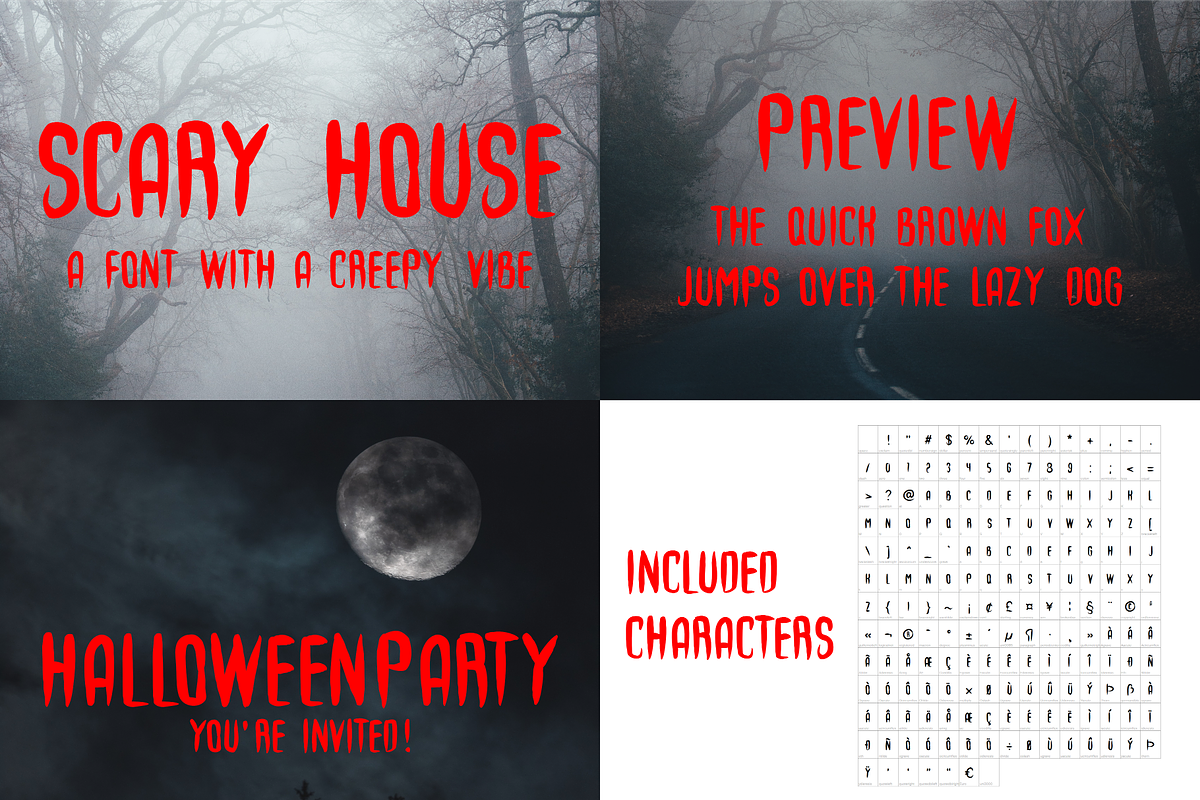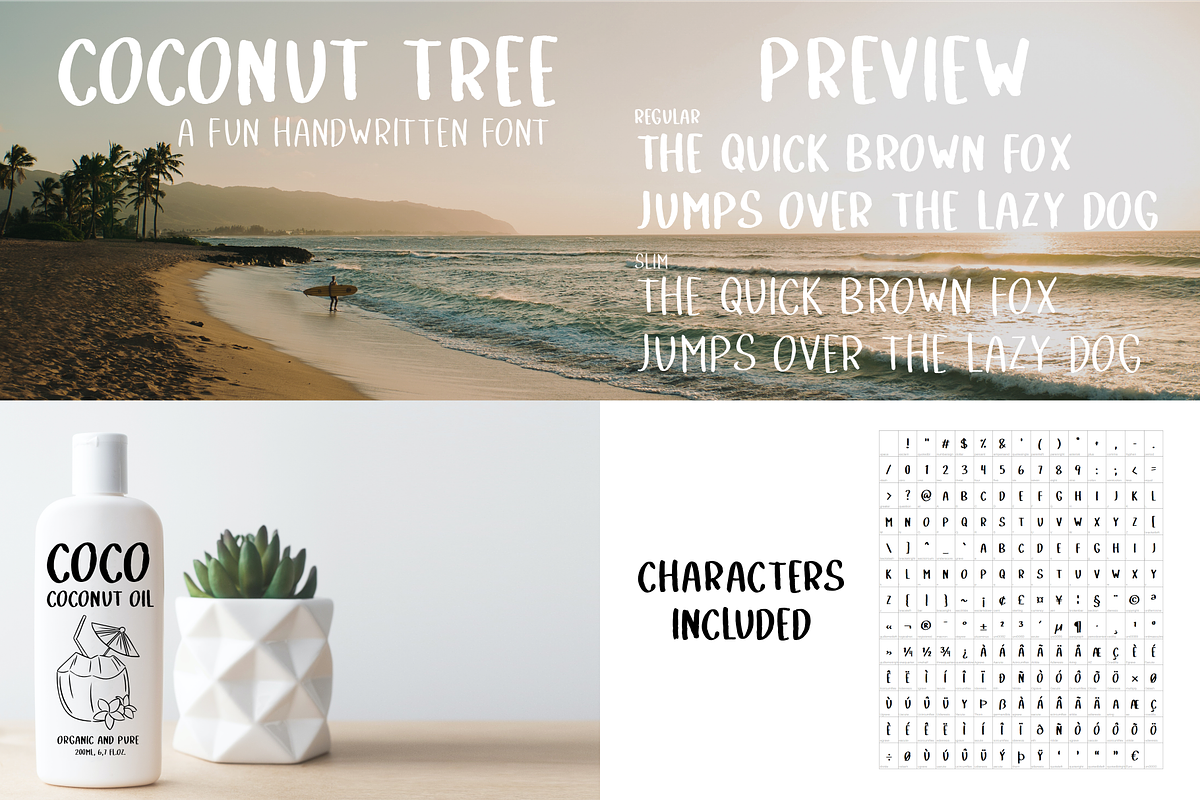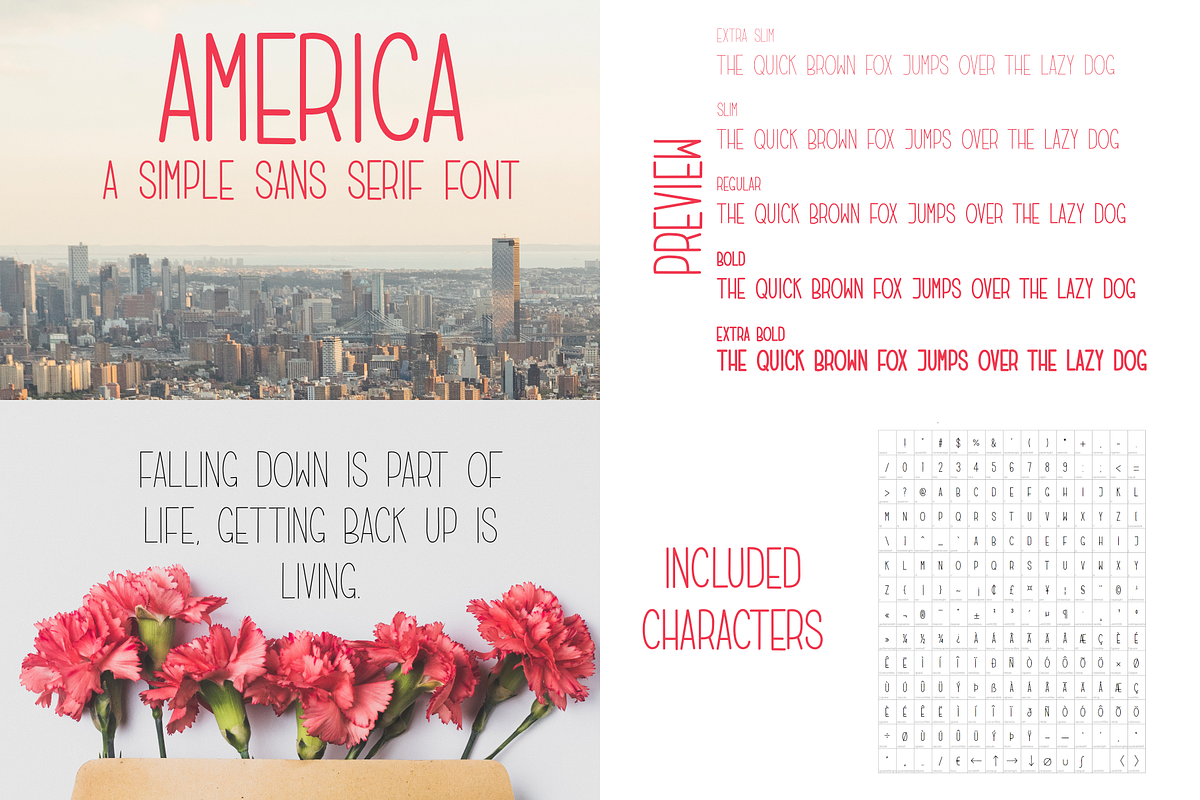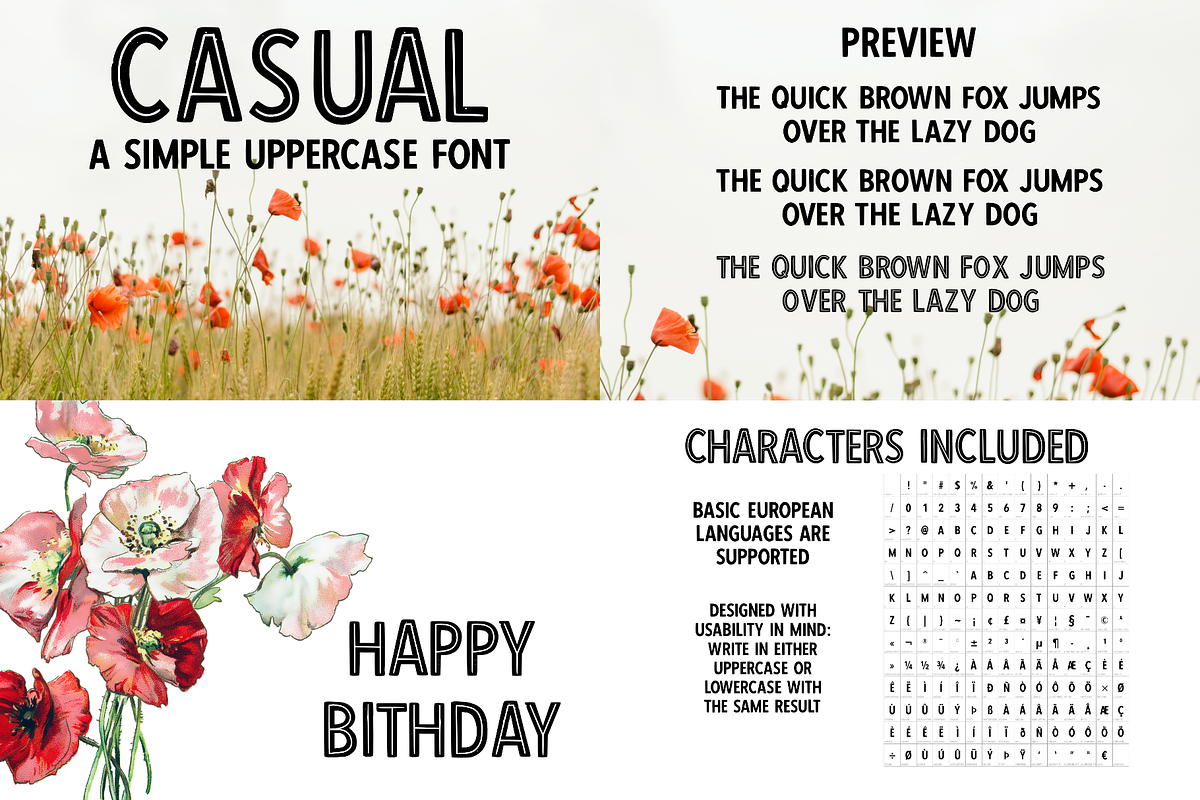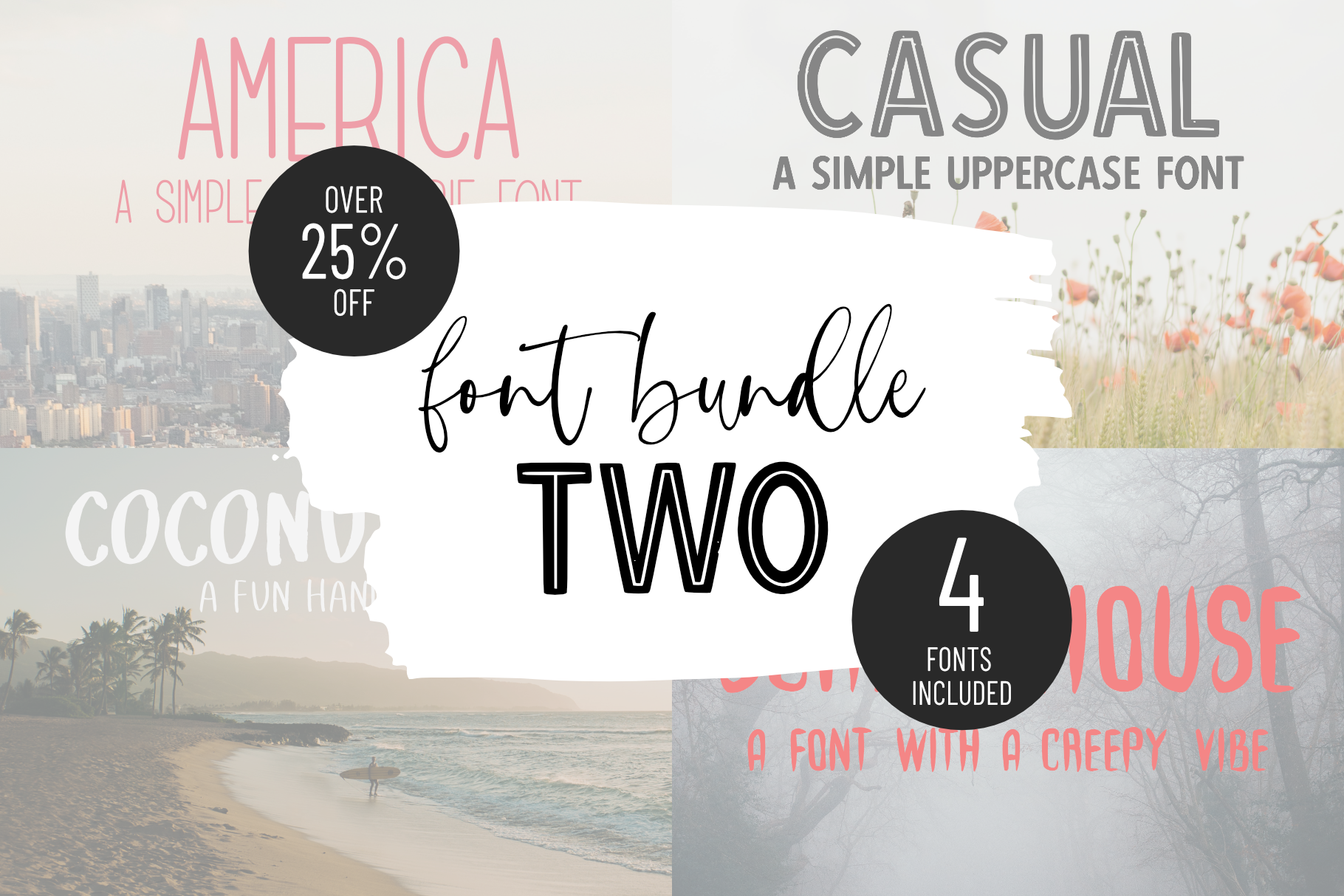
FONT BUNDLE TWO | 4 handmade fonts
Included in bundle:
- America
- Casual
- Coconut Tree
- Scary House
AMERICA:
America is a simple uppercase sans serif font. Comes in five different weights:
- extra bold
- bold
- regular
- slim
- extra slim
CASUAL:
Casual is a simple everyday font that fits every project. It comes in three different variants; regular, textured and inline.
COCONUT TREE:
Coconut tree is a fun handwritten font with a casual and organic vibe. Perfect for a summer project or for anything where you'd need a simple beautiful font. This font comes in two weights; regular and slim.
SCARY HOUSE:
Scary House is a fun handwritten display font with a creepy vibe, perfect for Halloween or any other project where you'd like a more scary feeling.